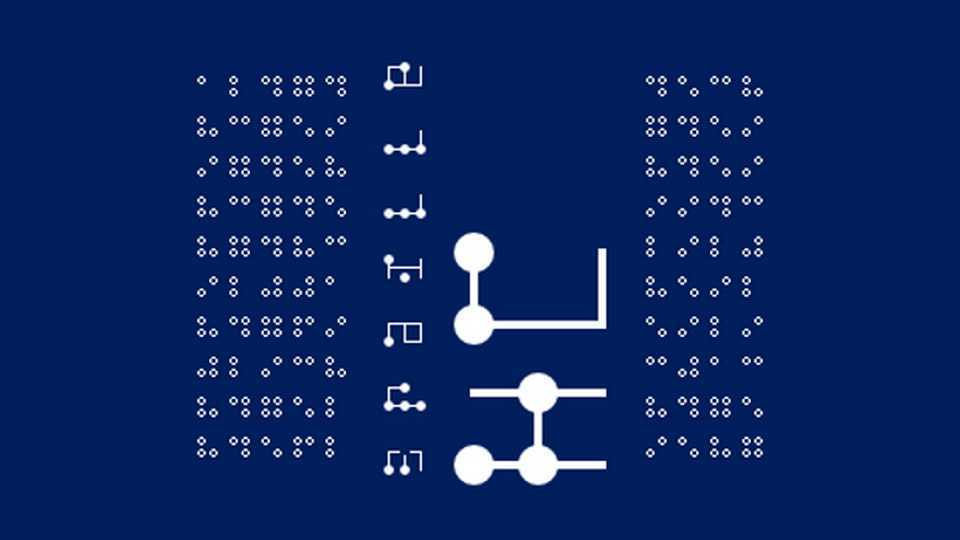
Download Braille HC, a family of typefaces based on the Braille language. The type family comes in four styles: Pixel, Pinboard, Grid, Latin and a color .svg to be developed.
Designer: Roberto Mocci